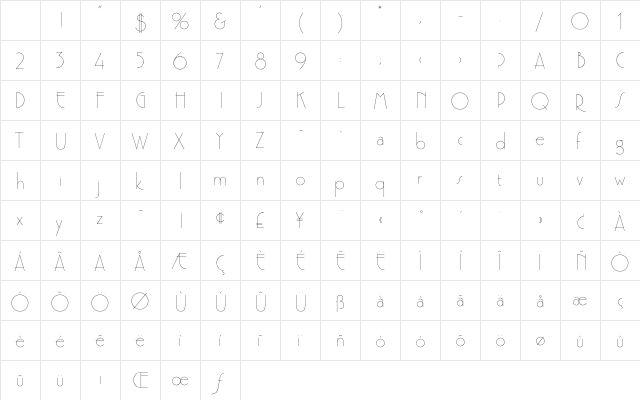
Complete Premier .. Lightline glyph index. Displaying only characters natively supported by Premier .. Lightline font.
Premier is a composed and adaptable typeface that performs quietly and consistently across a wide range of design contexts. Its slender proportions lend an understated elegance to any composition.